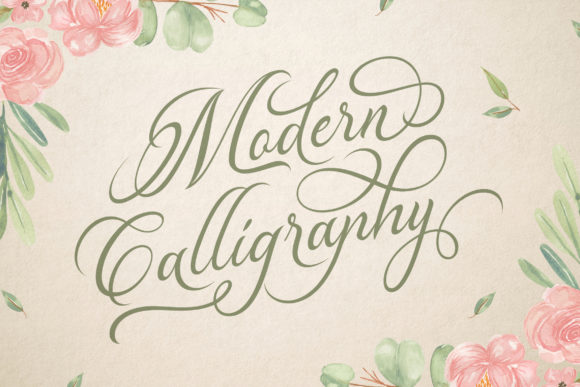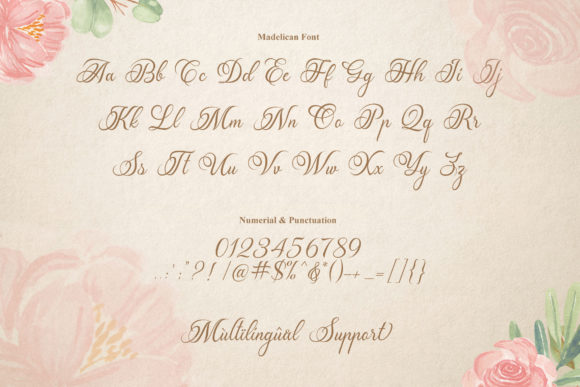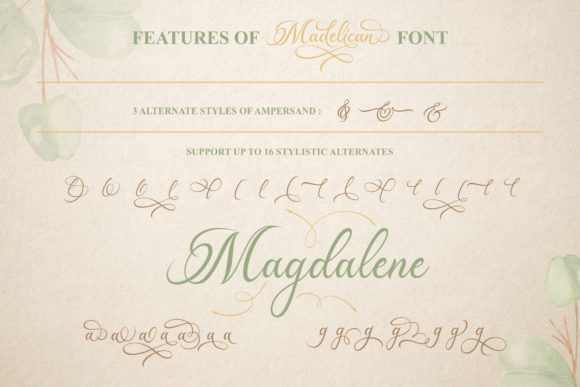
Introduction to Madelican Font
Madelican is a beautiful combination of modern and romantic calligraphy.
It is perfect for logos, posters, signatures and much more .
Key Features of Madelican Font
Why Choose Madelican Font?
Madelican Font offers exceptional quality and versatility, making it a valuable addition to your design toolkit. Whether you’re creating for personal projects or commercial use, Madelican Font delivers professional results.